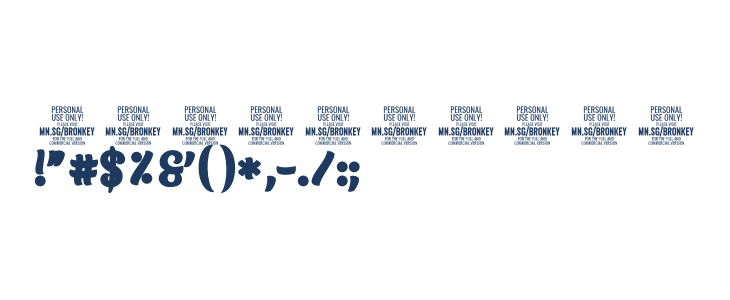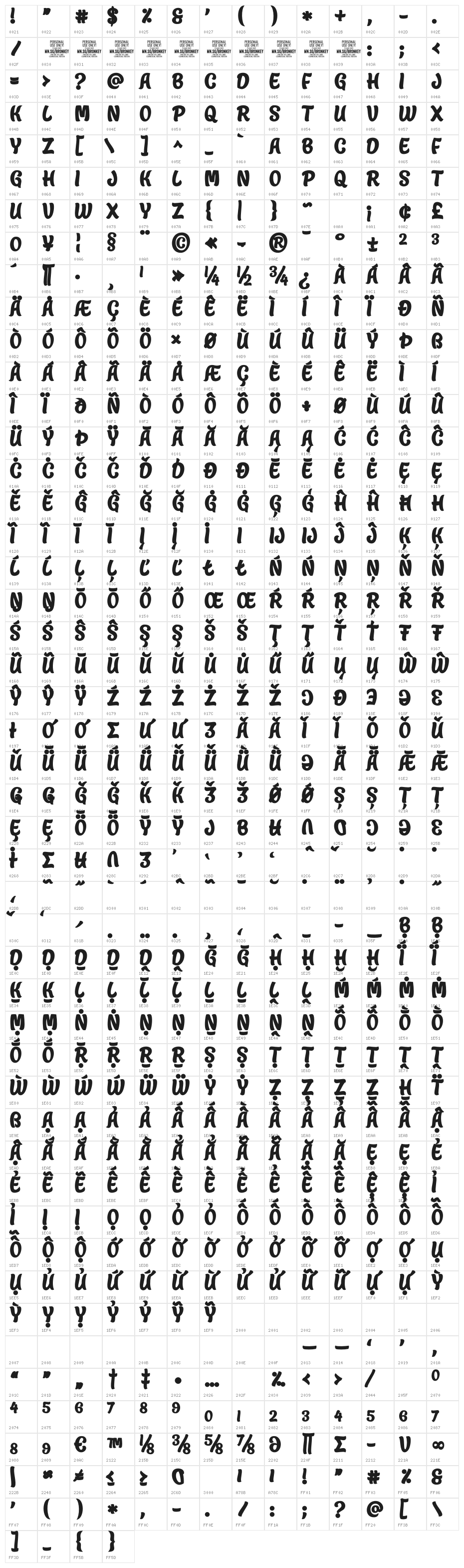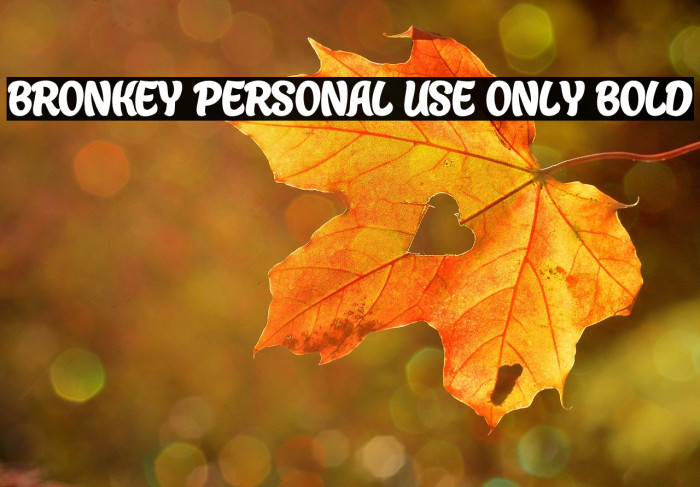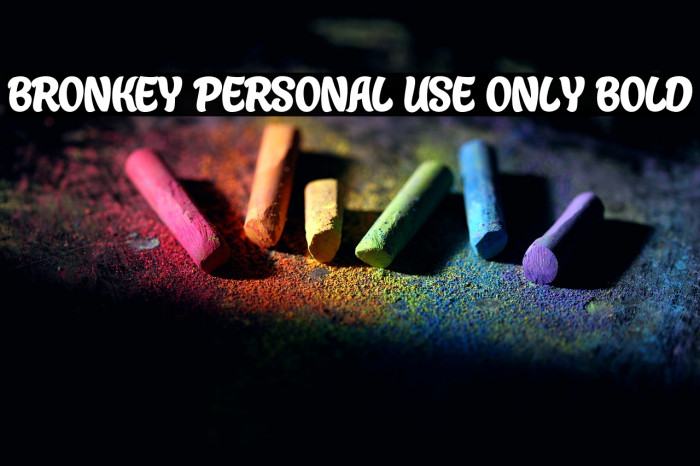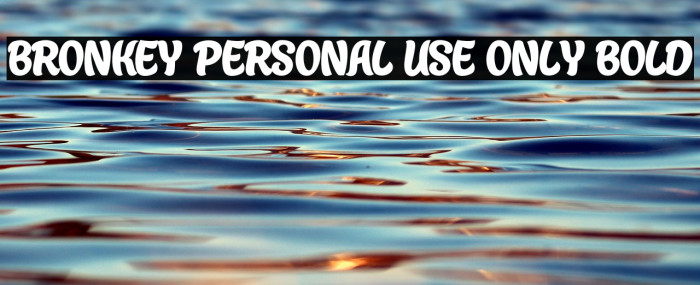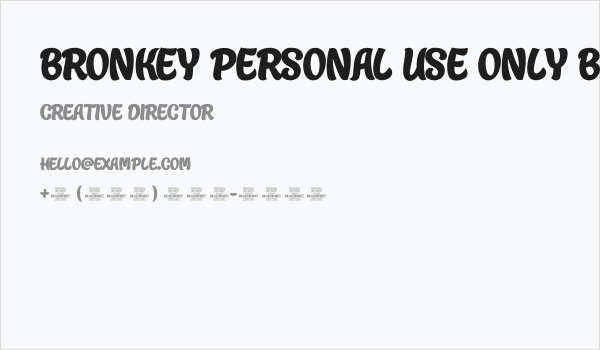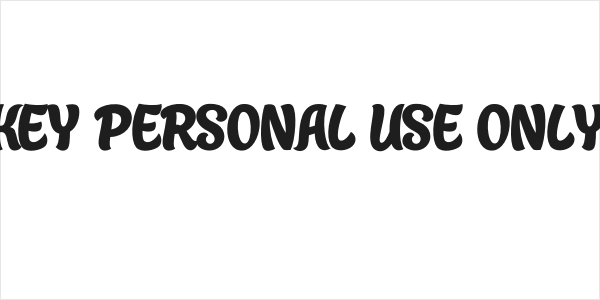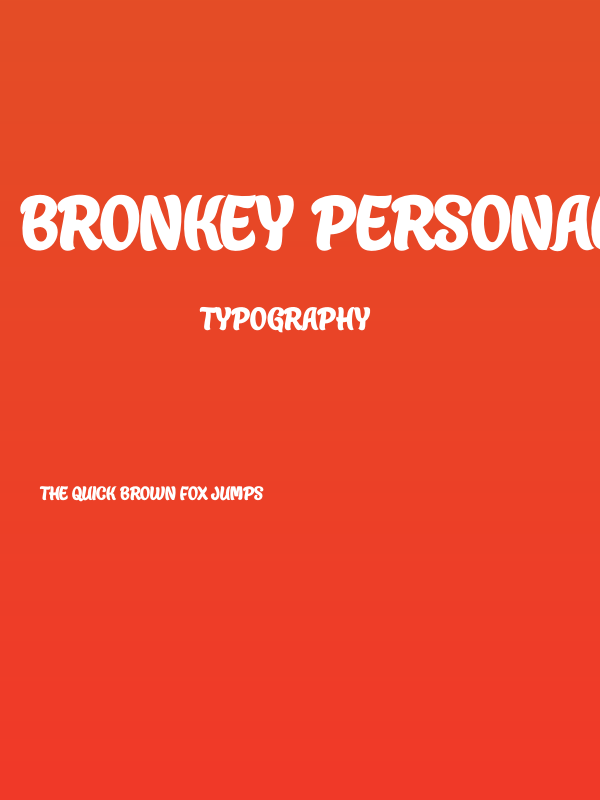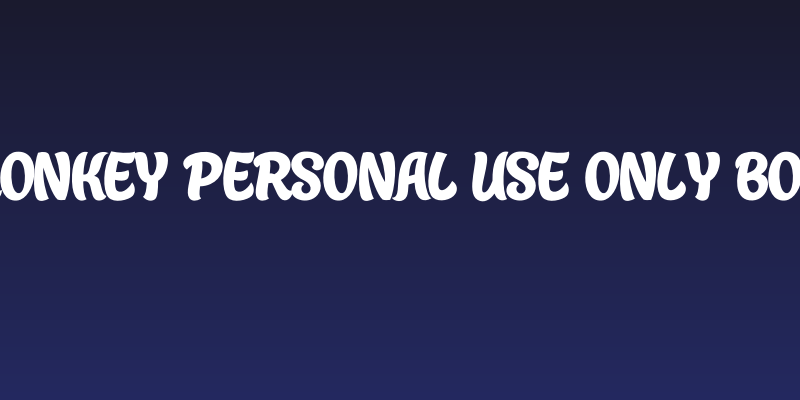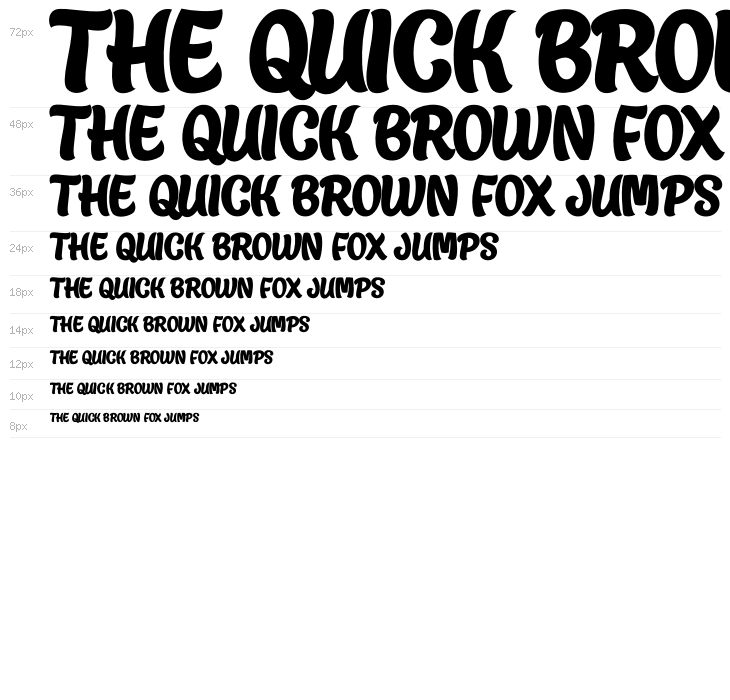
Bronkey PERSONAL USE ONLY Bold Font
Bronkey PERSONAL USE ONLY Bold Description
This bold and expressive font features thick, rounded strokes that convey a sense of energy and playfulness. The characters are designed with a smooth, flowing style, giving them a dynamic and lively appearance. The uppercase letters are particularly striking, with a consistent weight that maintains readability while adding a touch of flair. The lowercase letters complement the uppercase with a similar boldness, ensuring uniformity across text. The numbers and special characters are crafted with the same attention to detail, making them suitable for a variety of uses. Overall, this font exudes a modern and youthful vibe, perfect for projects that require a bold statement.